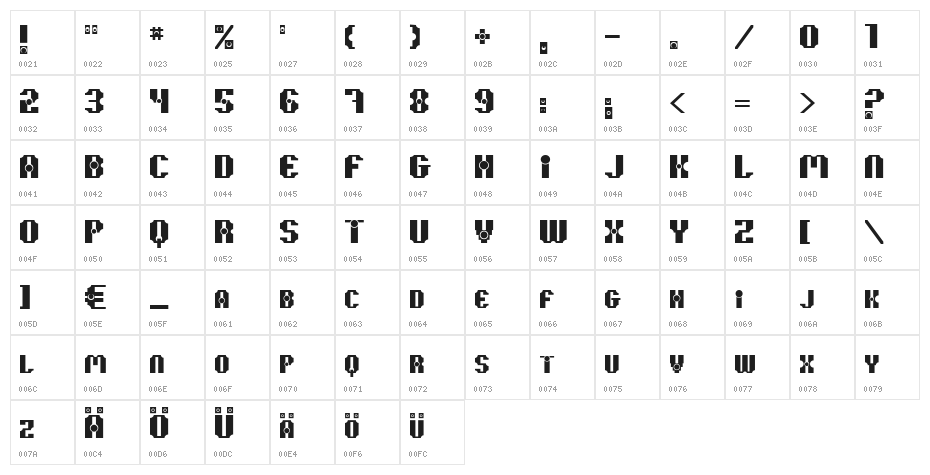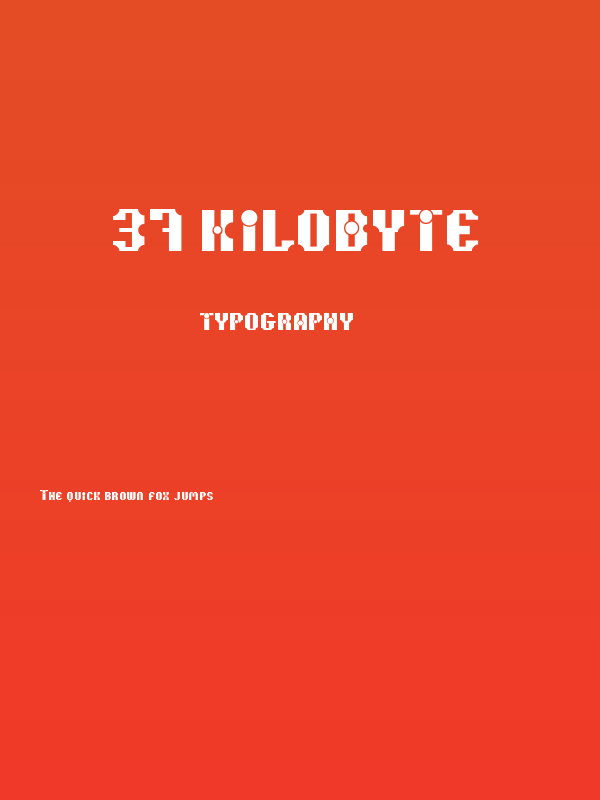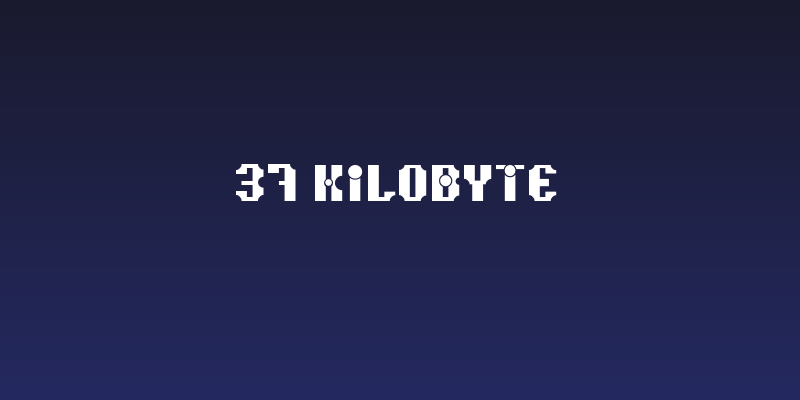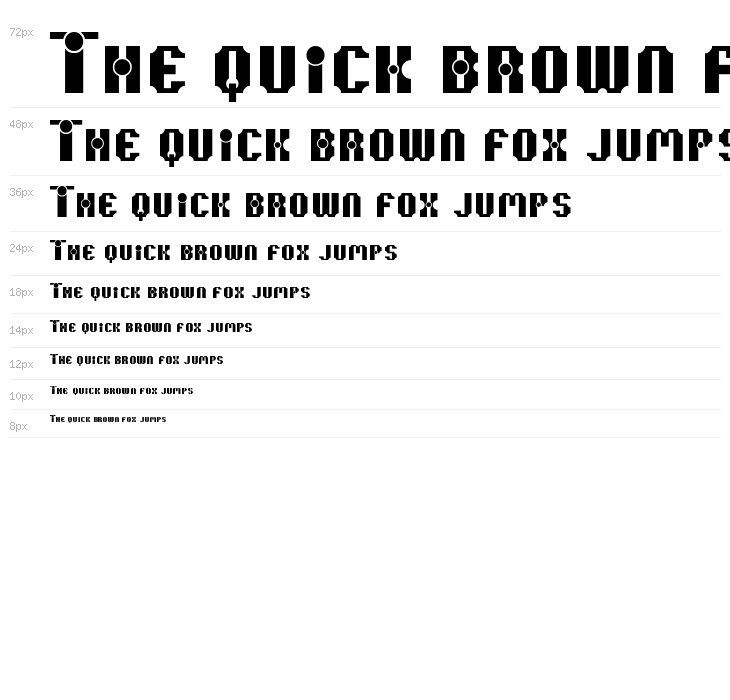
37 Kilobyte Font
37 Kilobyte Description
This font features a bold, geometric design with a distinct industrial feel. Each character is constructed with thick, blocky shapes and circular cutouts, creating a mechanical and futuristic appearance. The uppercase and lowercase letters maintain a consistent style, emphasizing uniformity and precision. Numbers and special characters follow the same design principles, ensuring a cohesive look across all glyphs. The font's unique aesthetic makes it stand out, with its strong lines and symmetrical forms offering a modern twist on traditional typefaces.
| Proposed Projects | Ideal for technology branding, sci-fi themed projects, video game titles, and industrial design applications. |